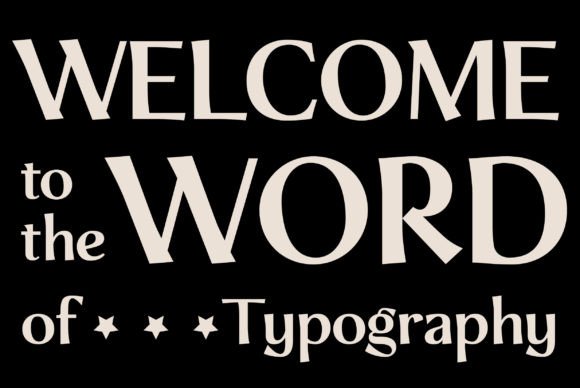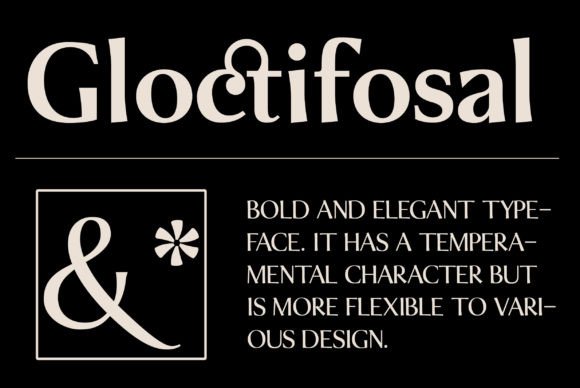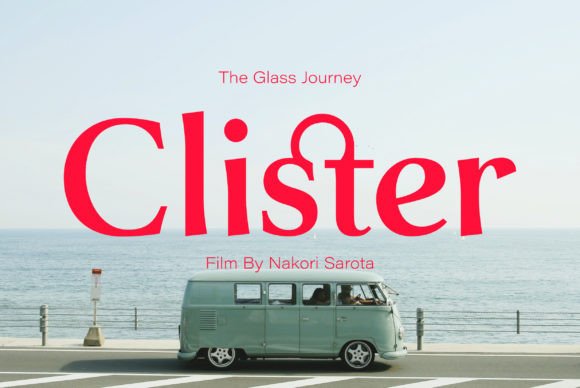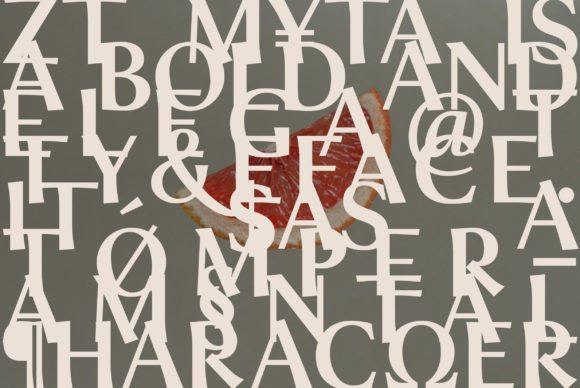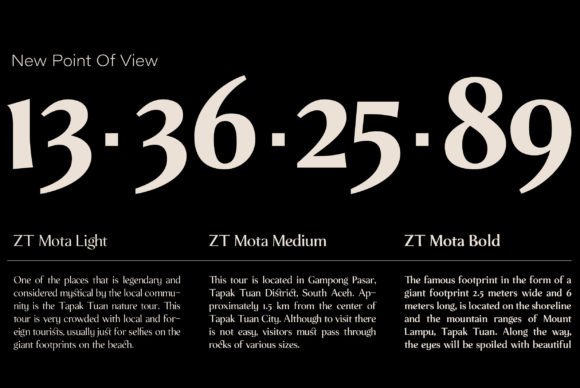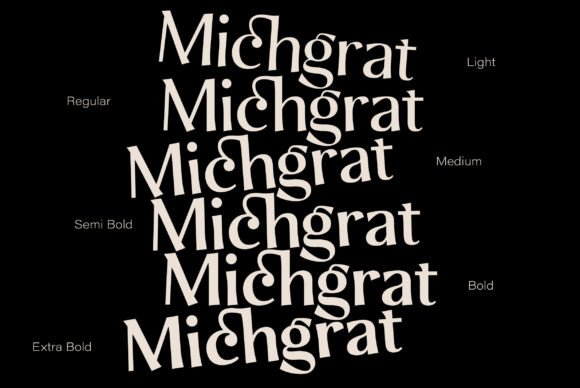
Introduction to Mota Font Font
Fonts play a crucial role in design, and the Mota Font font is a typeface that brings both character and versatility to any project. Whether you’re working on a branding project, a website, or a print design, the Mota Font font offers a unique style that can elevate your work.
Mota is a bold and elegant typeface.
It has a temperamental character but is more flexible towards various stylistic designs, reflecting more in its graphics the transitional stage between classical serifs of varying proportions, leaning towards the stylized types of Roman culture All the Mota styles are based on the same core but with a completely different expression which is to have an extra large height so that the font looks bold as if it was actually carved out of stone.
Key Features of Mota Font Font
Why Choose Mota Font Font?
The Mota Font font is more than just a typeface – it’s a design tool that helps you communicate your message with style and clarity. Its unique character set and versatile design make it suitable for a wide range of applications, from elegant invitations to bold headlines.
With its carefully crafted letterforms and balanced proportions, the Mota Font font ensures readability and visual appeal across all mediums.
What makes Mota Font font special?
The Mota Font font stands out with its unique design, exceptional readability, and versatility across various design applications.